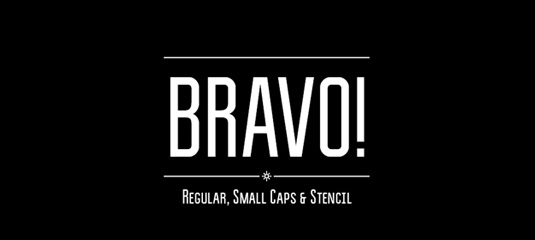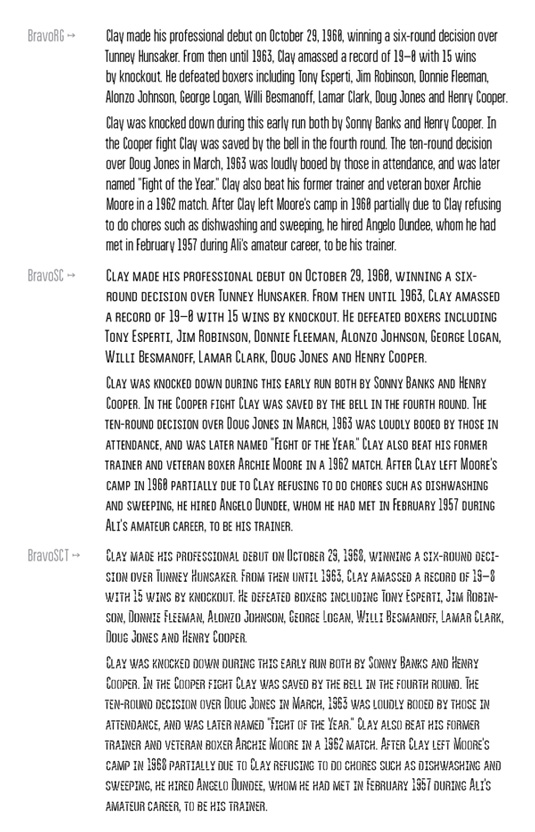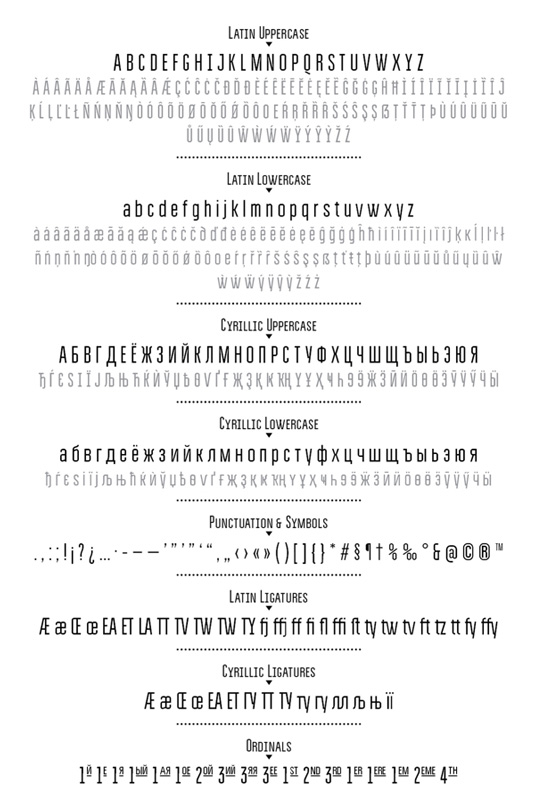
Font of the day: Bravo
Bravo by Michael Chereda
Graphic designer Michael Chereda is the man behind our font of the day, Bravo. He describes it as "a narrow accidental grotesque, which includes three tracings normal, small caps and screen. It contains more than 600 characters in each face. A variety of alternate glyphs, ordinals, ligatures help to make the text personality."